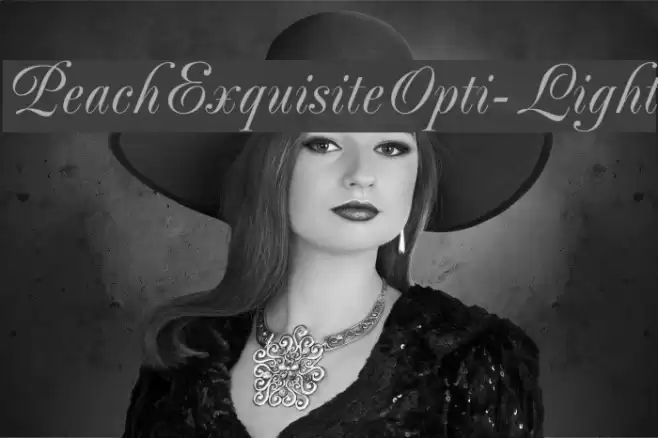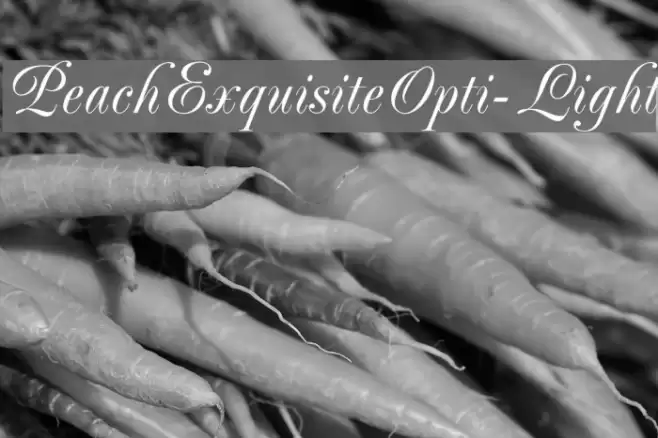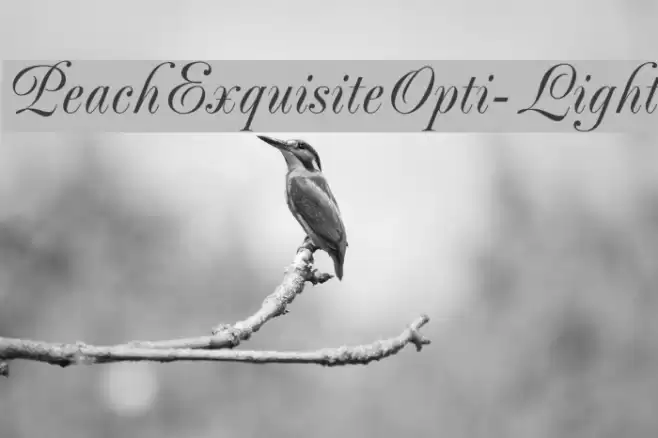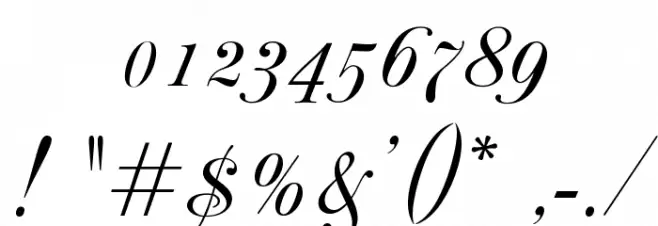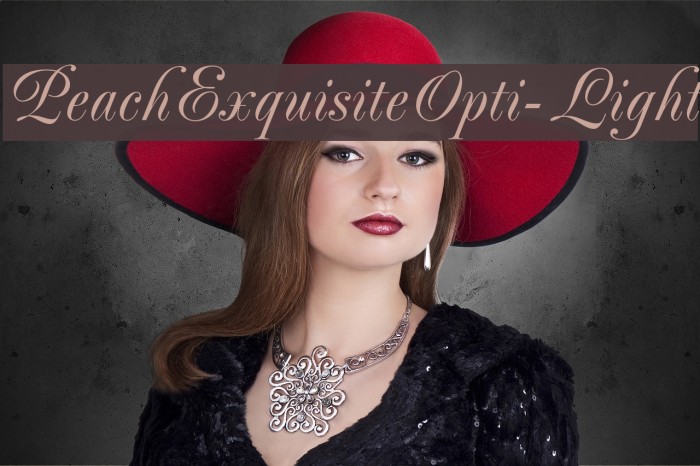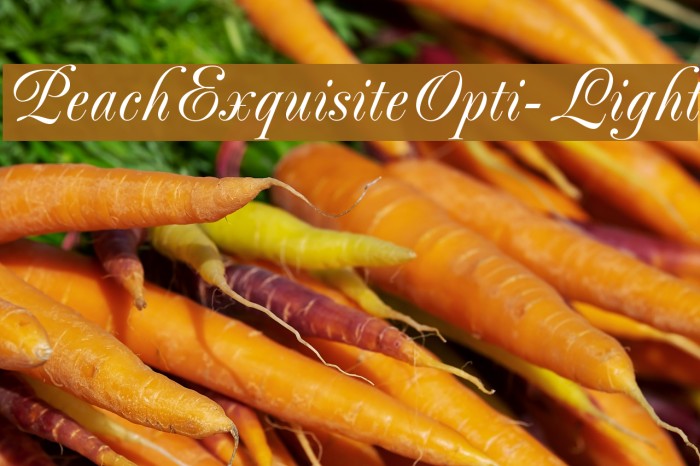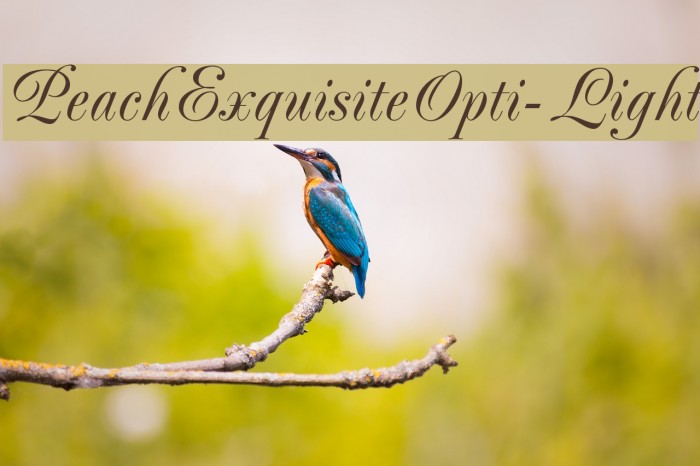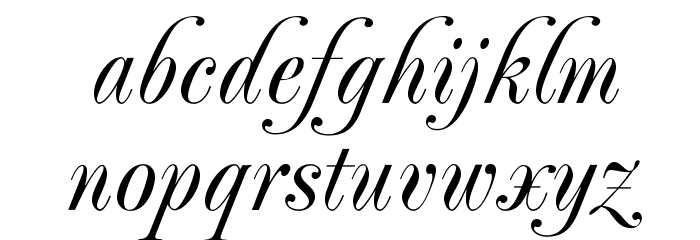
PeachExquisiteOpti-Light Font
PeachExquisiteOpti-Light Description
This elegant script font features a sophisticated and flowing design, characterized by its graceful curves and delicate strokes. The uppercase letters exhibit a classic calligraphic style with intricate swashes, while the lowercase letters maintain a smooth and fluid appearance. The numerals are designed with a similar elegance, incorporating subtle flourishes that enhance their visual appeal. Special characters are thoughtfully crafted to complement the overall aesthetic, making this font ideal for projects that require a touch of refinement and luxury.
An elegant script font with graceful curves and delicate strokes from Uncategorized fonts.
- Proposed Projects: Ideal for wedding invitations, luxury branding, elegant stationery, and high-end product packaging.
- Overall Style: Elegant
- Use Case: Logos, Invitations, Branding